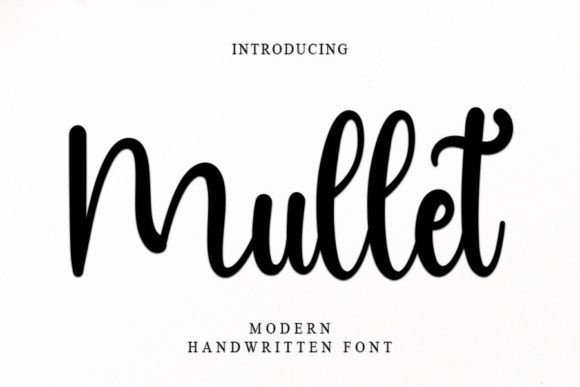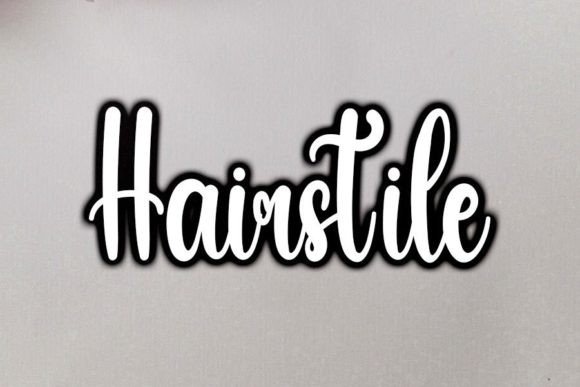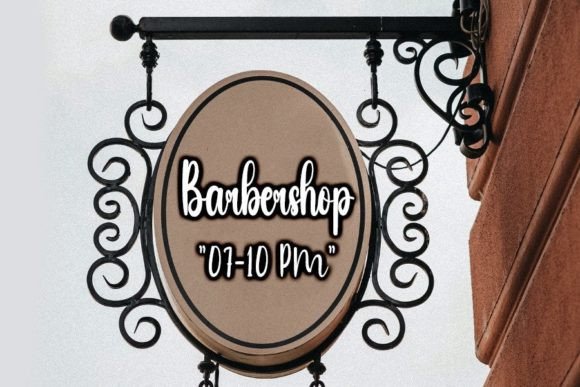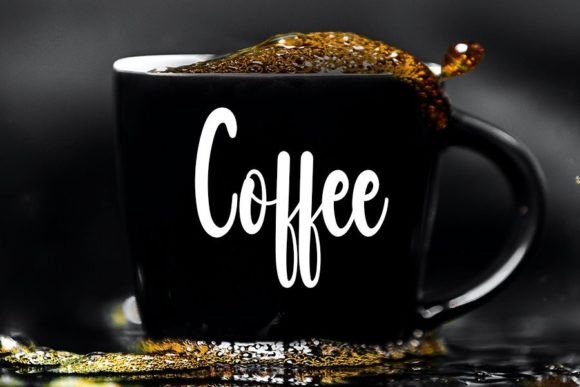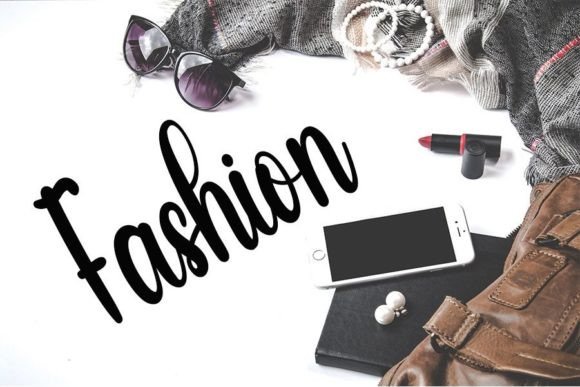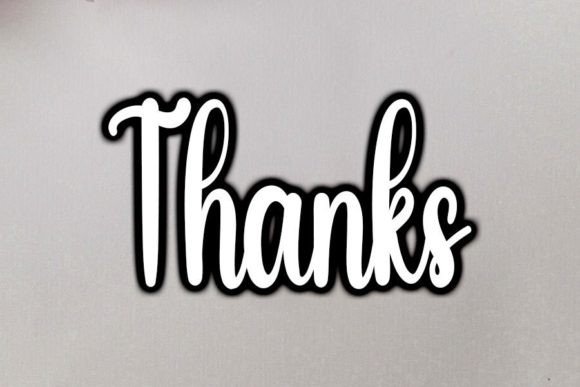
Mullet Font
About Mullet Font
“Mullet” is a font that emanates elegance and beauty through its neat and handwritten style. It is defined by an elegant touch that adds sophistication to any design project, making it an excellent choice for a wide variety of creative endeavors. “Mullet” stands out with its distinct and timeless style, making it an ideal font for those seeking a blend of sophistication and individuality.
The font’s meticulously crafted neat and beautiful characters exude refinement and grace. Its elegant touch adds a sense of sophistication, making it suitable for projects that demand a touch of class and style. Whether you’re working on wedding invitations, branding materials, social media graphics, or any other project, “Mullet” enhances the visual appeal, making your designs truly spectacular.
The unique and timeless nature of “Mullet” gives your designs a sense of originality and charm. Its handwritten elegance infuses a personal touch, making your creations feel warm and inviting. The font’s versatility allows it to adapt seamlessly to various design styles, ensuring it complements different themes and aesthetics effortlessly.
Incorporating “Mullet” into your projects enables you to craft designs that withstand the test of time. Its elegant and beautiful handwritten style adds sophistication, making your creations visually striking. Whether you’re working on elegant invitations, luxurious branding, or refined promotional materials, “Mullet” elevates the overall aesthetic, making your designs truly exceptional.
Falling in love with the unique and timeless style of “Mullet” allows you to create spectacular designs that capture your audience’s attention. Its elegant touch and distinctive characters will add sophistication to your favorite projects, transforming them into remarkable and unforgettable creations. Embrace the font’s elegance and let it breathe life into your designs, leaving a lasting impression on anyone who sees them.